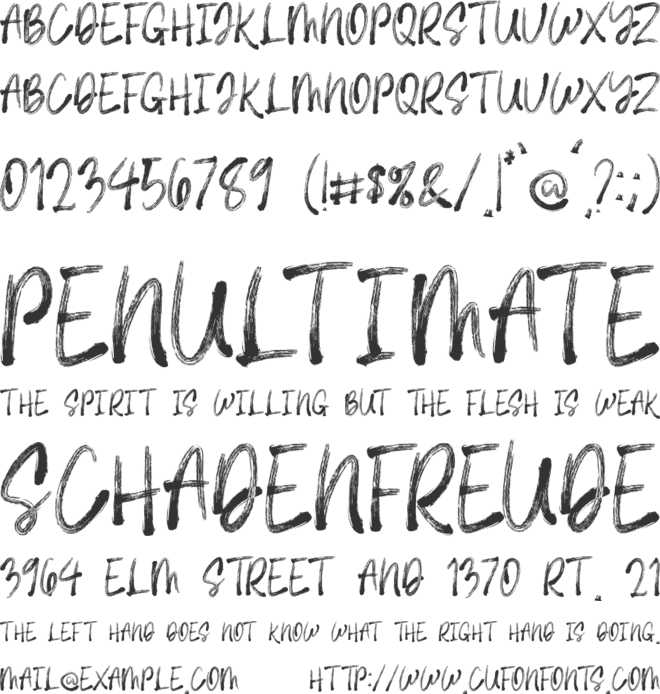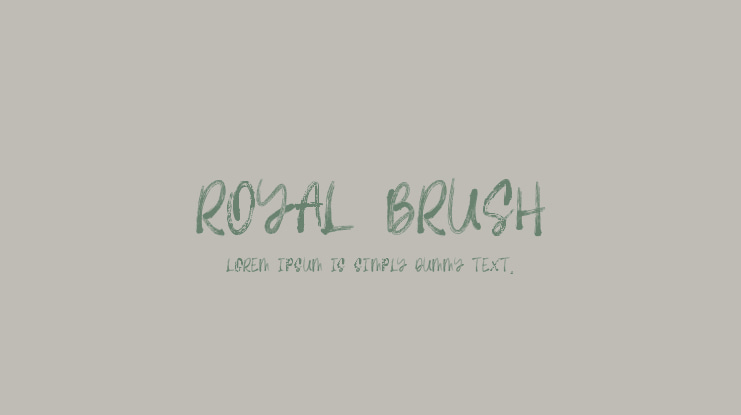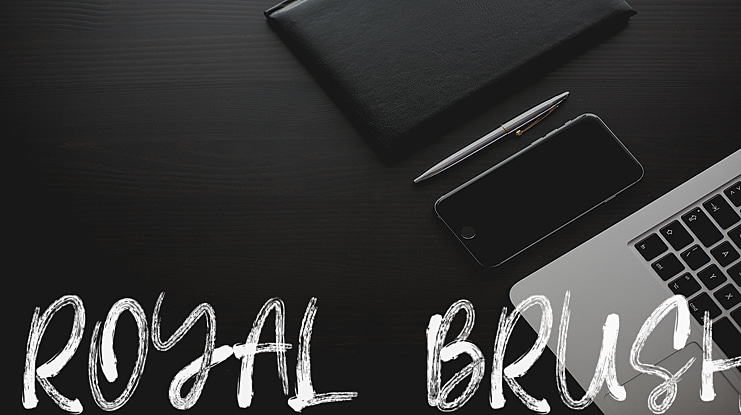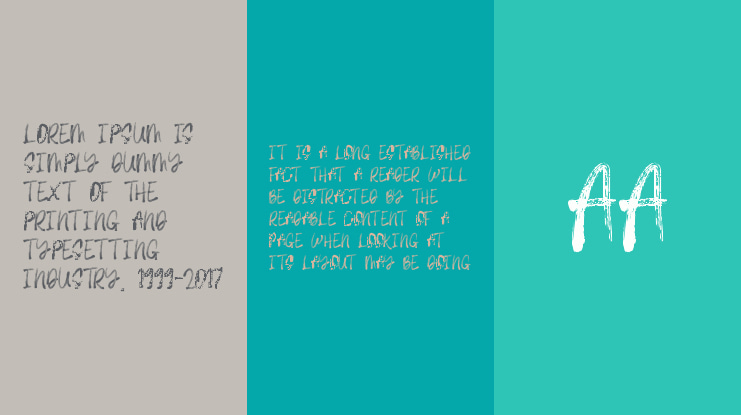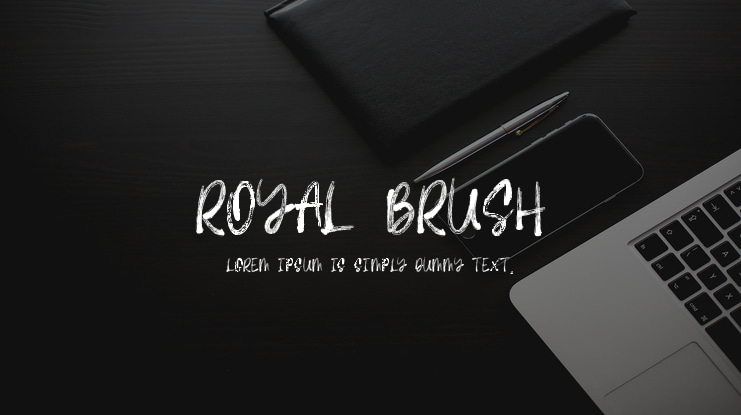
Royal Brush Font
177Studio
Introducing Raghen Script Font. Its a Modern Script Font with Handwritten Style. The font was created with authentic handwritting pen. Its signature monoline font. Clean and elegant, cursive, legible script font which can be used on a wide variety of designs such as: headlines, titles, headings, logos, branding, posters, invitations, books, and any other creative design.